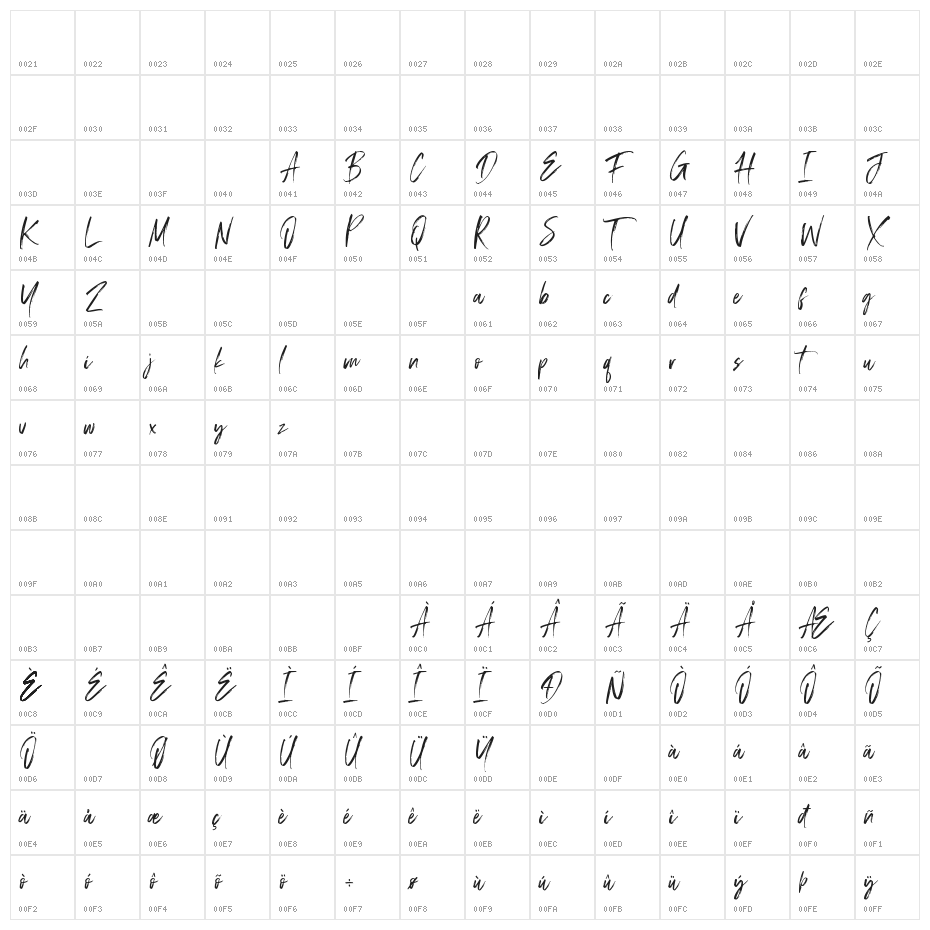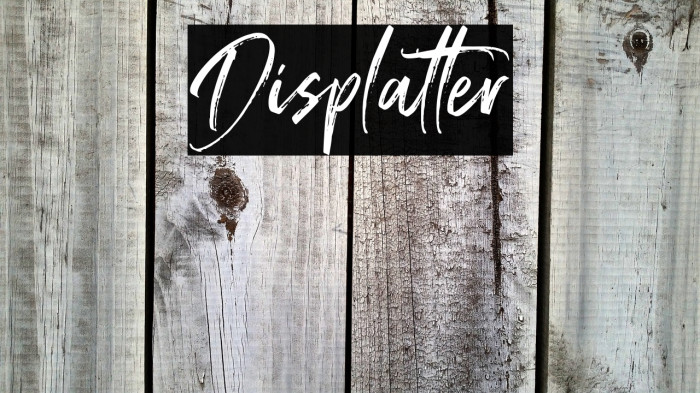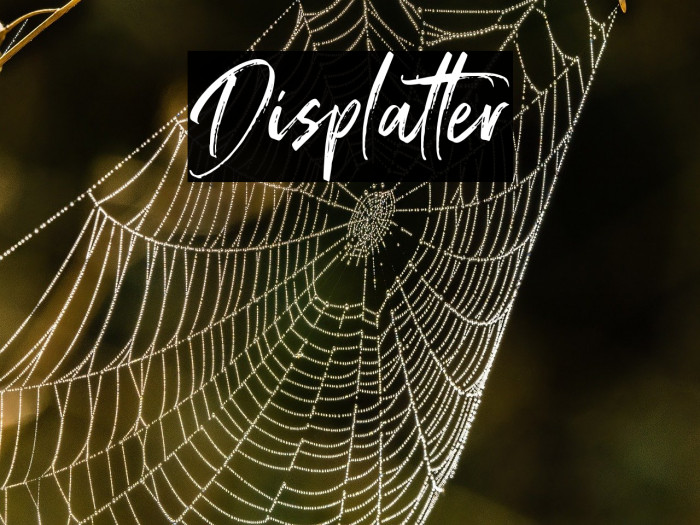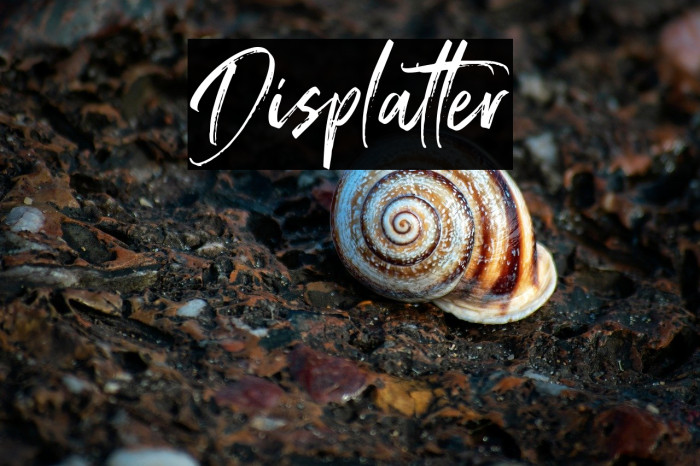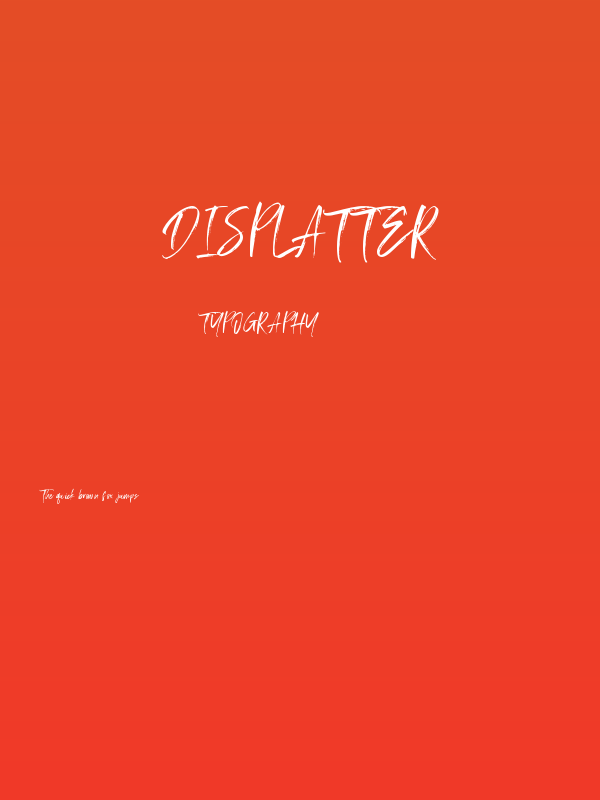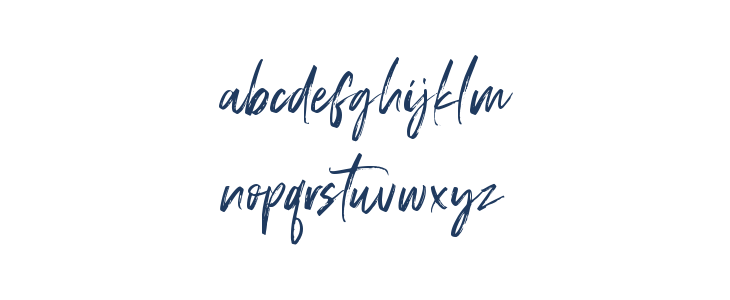
Displatter Font
Displatter Description
This font features a dynamic and expressive brush script style, characterized by its fluid and energetic strokes. The uppercase letters are bold and impactful, with a sense of motion and flair that suggests a hand-painted aesthetic. The lowercase letters maintain this lively quality, offering a more connected and flowing appearance. The overall design is both artistic and modern, with a slightly irregular baseline that adds to its handcrafted feel. The font's unique texture and varying stroke widths create a sense of depth and movement, making it ideal for creative and eye-catching designs.
| Overall Style | Modern, Decorative |
| Use Case | Logos, Headlines, Posters |
| Proposed Projects | Ideal for branding, packaging, posters, and any project requiring a bold, artistic touch. |